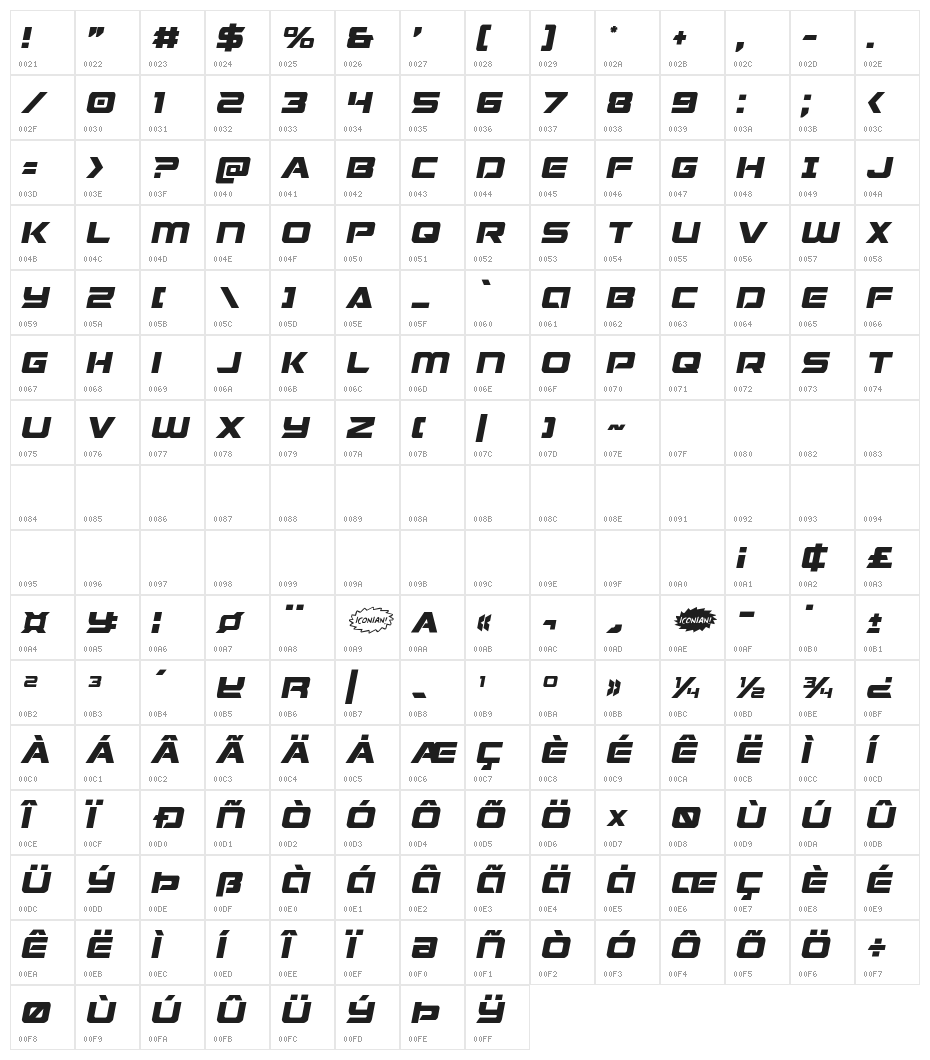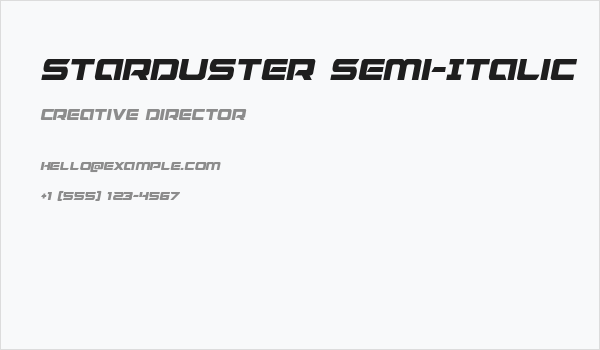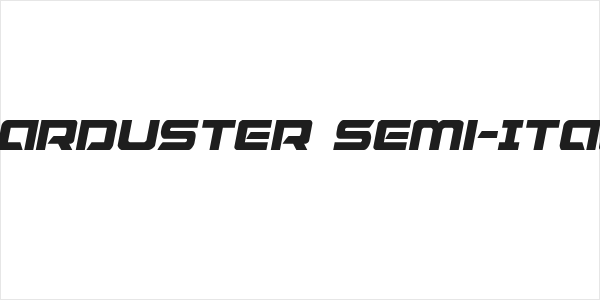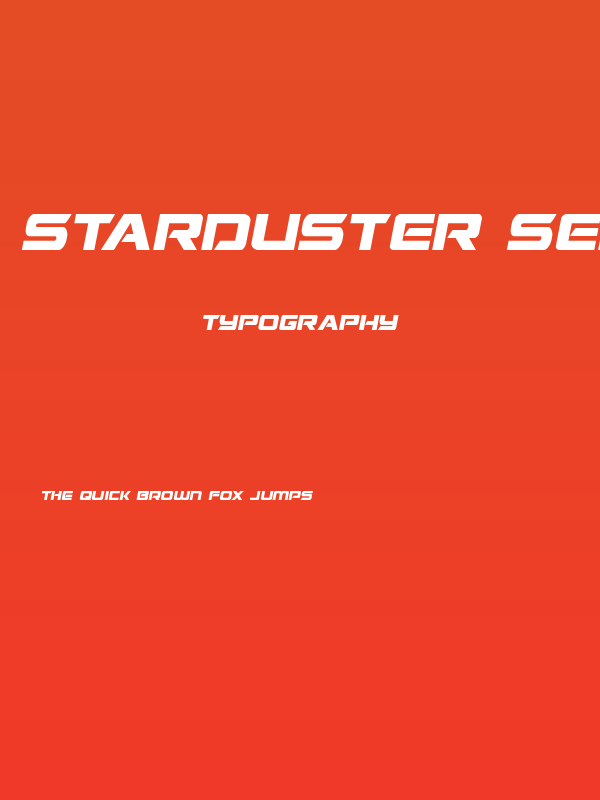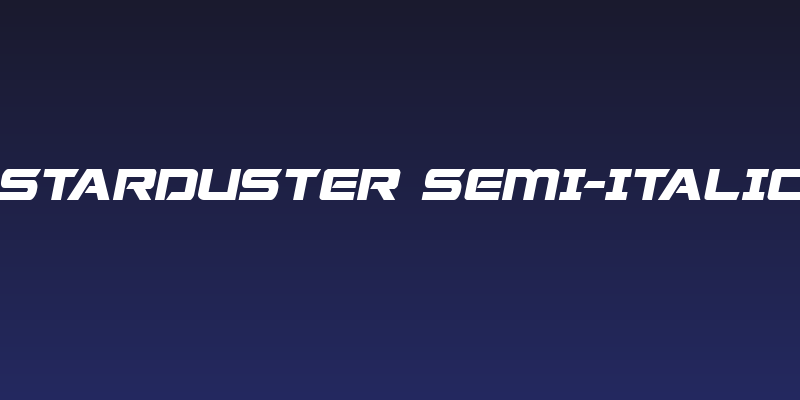
Starduster Semi-Italic Font
Starduster Semi-Italic Description
This font features a bold and dynamic design with a futuristic flair. The characters are slightly italicized, giving a sense of motion and speed. The strokes are thick and consistent, providing a strong visual impact. The angular cuts and geometric shapes add a modern and edgy feel, making it ideal for projects that require a sense of innovation and forward-thinking. The numbers and special characters maintain the same boldness and style, ensuring consistency across all text elements.
| Use Case | Logos, Headlines |
| Proposed Projects | Ideal for technology branding, sports team logos, video game titles, and sci-fi movie posters. |